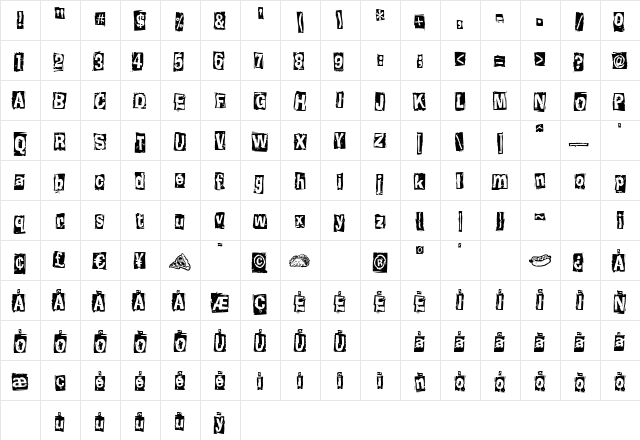
Knucklehead Boxed Regular
Design Context for Knucklehead Boxed Typeface
Knucklehead Boxed is a composed and adaptable typeface that performs quietly and consistently across a wide range of design contexts.